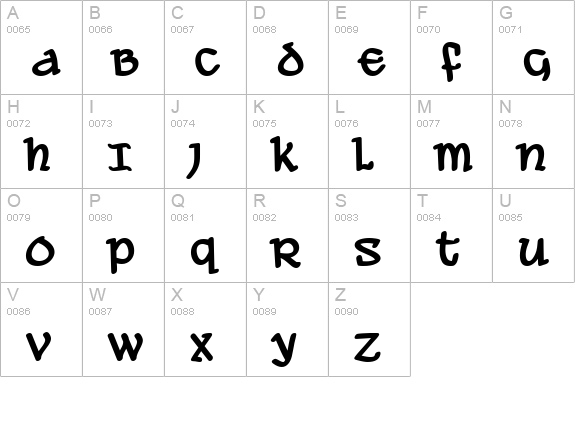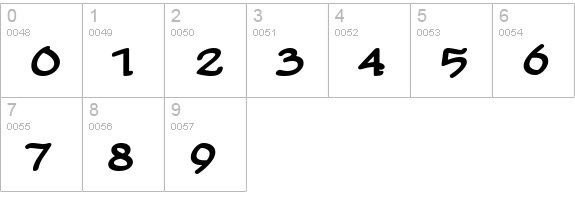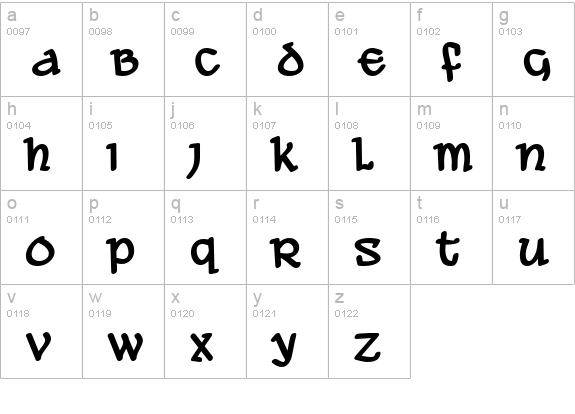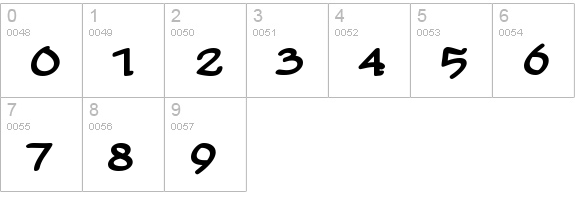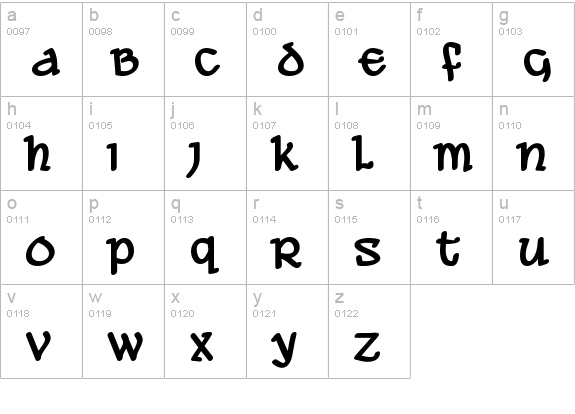
Ale and Wenches BB Bold Font Details
Ale and Wenches BB Bold is a strong, high-contrast variant in the Ale typeface family \xE2\x80\x94 well suited to headlines, attention-grabbing titles, and strong calls-to-action.
Ale and Wenches BB Bold font is a bold and striking typeface that exudes a sense of strength and confidence. Its thick, powerful strokes make a statement and command attention. This font is perfect for headlines, titles, and other design projects that require a bold touch. What sets Ale and Wenches BB Bold font apart is that it is completely free to download at FontsMarket.com. This means you can easily add this impactful font to your collection without any cost. Whether you're a designer looking for a powerful display font or just someone who appreciates high-quality typography, Ale and Wenches BB Bold font is a fantastic choice that won't break the bank. Download it today and elevate your designs with its bold presence.